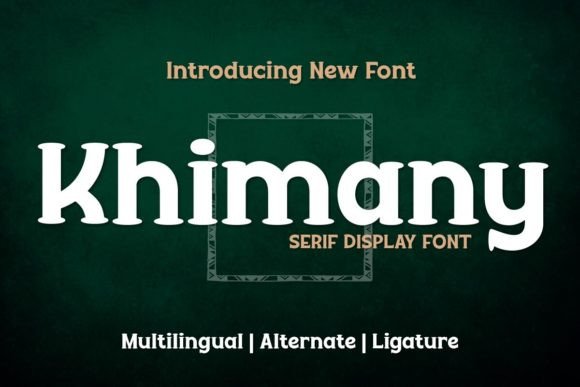
Introducing Khimany Font, the gateway to captivating visual designs that leave a lasting impression. This remarkable display font, meticulously crafted by twinletter, stands out from the crowd with its bold and distinctive character.
Khimany's essence lies in its versatility, effortlessly adapting to a myriad of design projects, from attention-grabbing YouTube banners to mesmerizing social media posts. Its elegant serifs exude a touch of sophistication, while its sharp edges add a hint of modernity, making it the perfect choice for those seeking to make a statement.
With Khimany at your disposal, you'll embark on a journey of creativity, where your imagination takes flight. Its undeniable charm will captivate your audience, leaving them spellbound by the sheer brilliance of your designs.
Step into the realm of Khimany Font and unlock a world of endless possibilities. Let its captivating presence elevate your designs and ignite the spark of inspiration within you. Every stroke, every curve, every letterform is meticulously crafted to evoke emotions and create a lasting impact.
So, why settle for ordinary when you can embrace the extraordinary? Experience the power of Khimany Font today and let your designs soar to new heights. Its versatility knows no bounds, adapting seamlessly to any project, any style, any vision.
Welcome to the Khimany revolution, where typography transforms into art, and your designs become masterpieces that captivate and inspire.